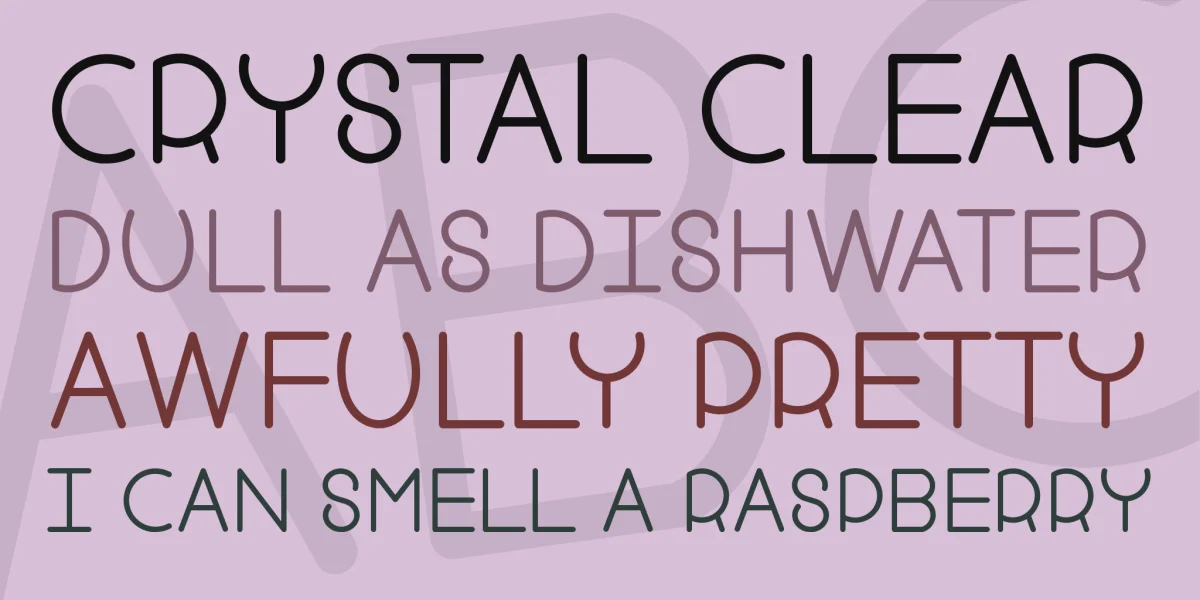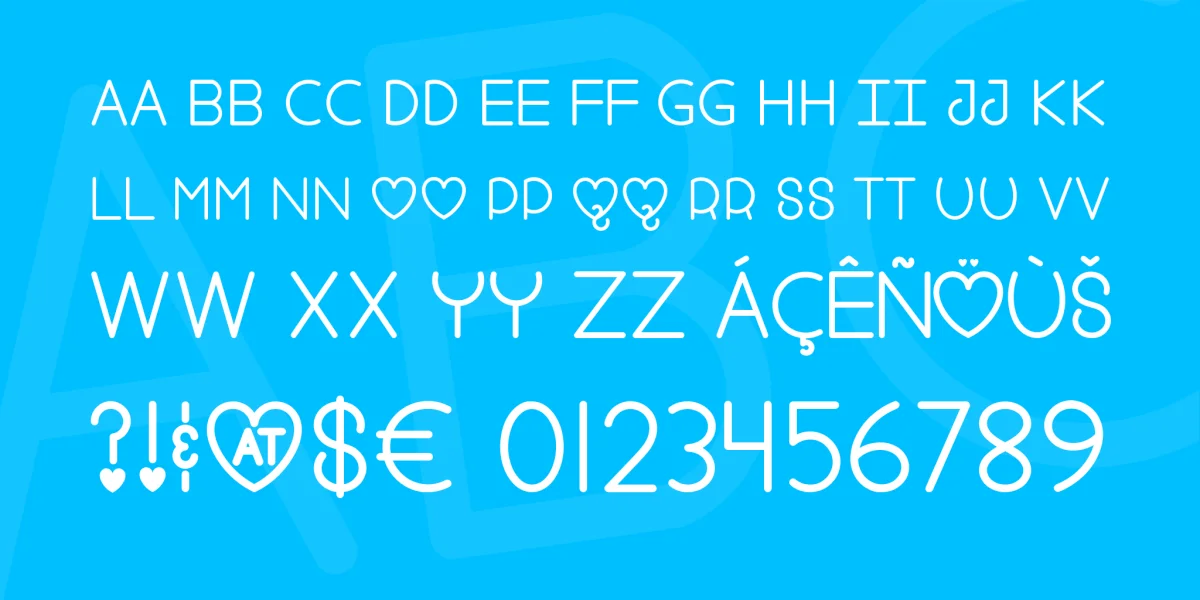
Type * (asterisk) for the scribble heart Type # (numbersign or hashtag) for the solid heart Type | (vertical bar) for the broken heart Type [] (brackets) for the small swirls Type {} (curly braces) for the big swirls